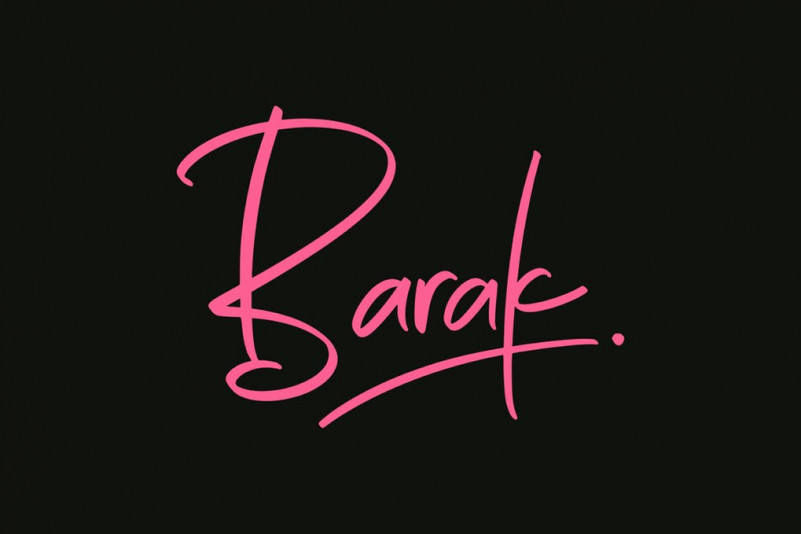
Barak Font
Barak, this hand-drawn font is ideal for designing branding and logo project, social media campaign, handwritten quotes and product packaging.
Barak have a basic character and some ligatures. You can play with Barak in your design project.